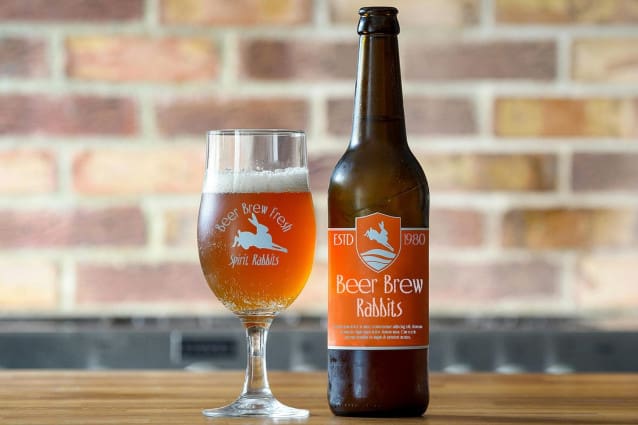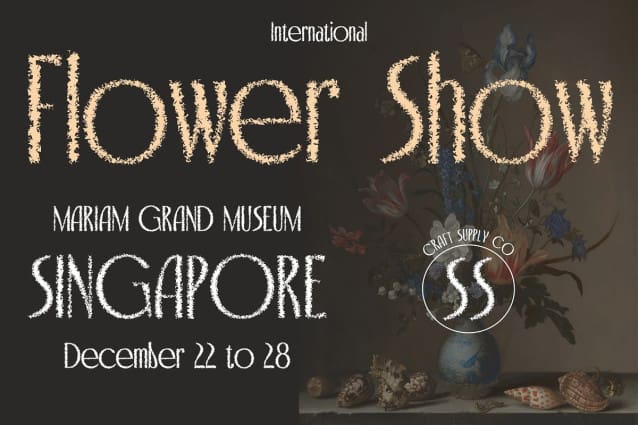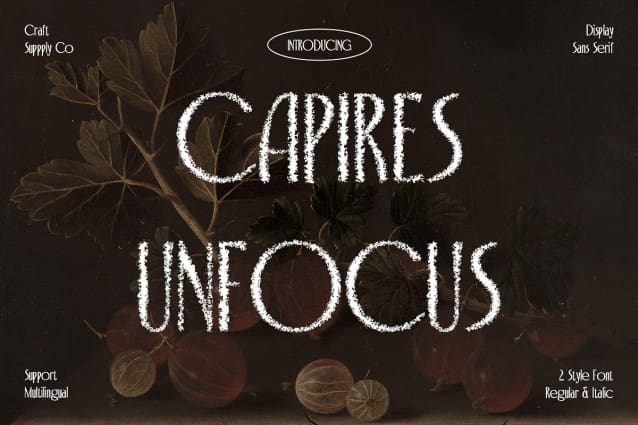
Capires Unfocus Font
Capires Unfocus Font: Redefining Contemporary Display Typography. Blurry Sans Serif Style Capires Unfocus presents a unique take on contemporary display typography with its blurred sans serif design. The unfocused effect adds an intriguing visual dimension to the font’s shape, making it ideal for avant-garde or experimental displays.
Experimental Aesthetics Embracing the unconventional, This font breaks free from traditional design norms. Its blurred contours challenge conventional typographic expectations, offering a fresh and experimental aesthetic for modern display projects.
Versatile Display Potential While distinctly contemporary, This font possesses versatile display potential. Whether used in digital interfaces, advertising campaigns, or artistic endeavors, its blurry sans serif style lends a touch of innovation and intrigue to any design.
Contemporary Expression Through Typography In the realm of contemporary design, typography plays a pivotal role in expression. This font serves as a bold statement, allowing designers to explore new realms of creativity and expressiveness through its blurred sans serif form.
Embrace the Blur This font reimagines contemporary display typography with its blurred sans serif style. Perfect for experimental and avant-garde projects, this font offers a fresh perspective on typographic expression, inviting designers to embrace the blur and push the boundaries of creativity.